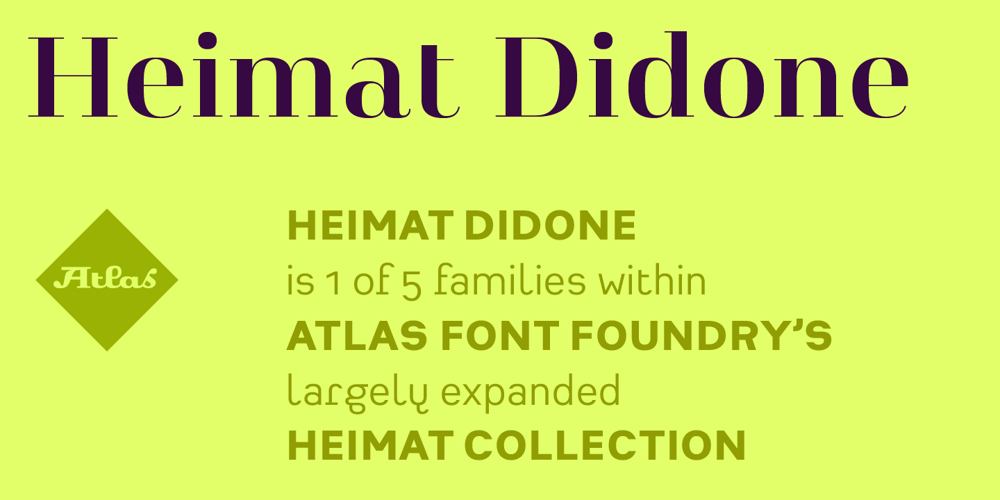
Heimat Didone Font Family was designed by Christoph Dunst and published by Atlas Font Foundry. Heimat Didone contains 73 styles and family package options. Heimat Didone is the high contrast serif typeface family within the Heimat Collection, also containing Heimat Display, Heimat Sans, Heimat Mono and Heimat Stencil. Heimat Didone is a neo-classical typeface family designed for contemporary typography, especially for use in headlines and on posters, but also for reading purposes. It combines an idiosyncratic appearance with the feeling of a grid-based letter construction of the late 20s. Since the design might be too extreme for some applications, Heimat Didone’s character set provides two alphabets, the regular one plus an alternate design that comes across as less suspenseful. Heimat Didone [872 glyphs] comes in 72 styles and contains 6 optical weights, extra sets of alternate glyphs, many ligatures, lining figures [proportionally spaced and monospaced], hanging figures [proportionally spaced and monospaced], positive and negative circled figures for upper and lower case, superior and inferior, fractions, extensive language support and many more OpenType features.